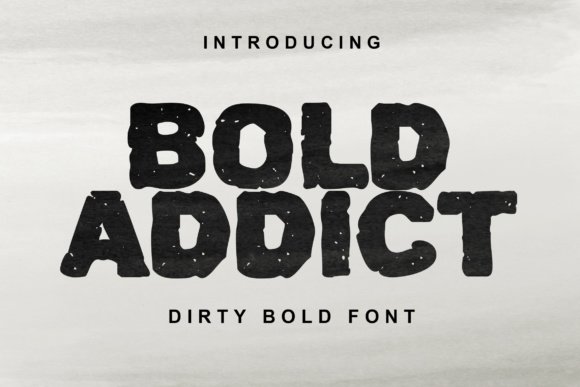
The Perfect Typography Fix for Your Next Design Project
Remember that moment when you’re working on a design project and you just can’t seem to find the right font to convey the message you want to get across? The words are flowing, the colors are popping, but that one missing piece is holding everything back. That’s where the Bold Addict Font comes in – a strong, solid handmade typeface designed to add some much-needed punch to your designs.
Whether you’re a seasoned designer or just starting out, the Bold Addict Font is a valuable addition to your toolkit. Its unique, handmade aesthetic lends a touch of sophistication and personality to any project, making it perfect for branding, marketing materials, and more. With its bold, confident lines, the Bold Addict Font is sure to grab attention and leave a lasting impression.
Bold Addict Font Key Features
- Font Family: Bold Addict Font
- Unique Characteristics: Features a bold, modern design with a unique blend of geometric and organic shapes, making it ideal for headlines, titles, and other attention-grabbing text
Bold Addict Font Review
As a designer, I’ve had the chance to work with a variety of fonts, and my experience with Bold Addict has been quite interesting. Let’s break it down.
- Unique and eye-catching: Bold Addict is certainly a statement font, and it can be just what a design needs to grab attention.
- Wide range of uses: From headings to titles, this font can add a bold touch to any project, be it digital or print.
- Highly customizable: With many variations and ligatures available, you can tweak the font to fit your design perfectly.
- Not ideal for body text: The bold and playful nature of Bold Addict can make it difficult to read in large blocks of text.
- Not as versatile as other fonts: While it excels at making bold statements, it may not be the best choice for more subtle or minimalist designs.
- May not be suitable for accessibility: The font’s boldness and playfulness can make it challenging for users with visual impairments or reading difficulties.
Overall, Bold Addict is a great choice for designers who want to make a bold statement or add some personality to their projects. However, it’s essential to use it judiciously and consider the context in which it will be used. With its unique qualities and customizable options, it’s a valuable addition to any designer’s toolkit, but it’s not a one-size-fits-all solution.
The Bold Addict Font is ideal for:
- Creating bold and eye-catching titles.
- Designing posters, flyers, and brochures.
- Enhancing the visual impact of presentations and reports.
- Adding a touch of personality to social media graphics and ads.
Comparison to Bold Addict Font: Great Vibes has a more refined and polished look compared to Bold Addict Font, which has a more rugged and edgy feel. Great Vibes is better suited for formal and high-end designs, while Bold Addict Font is ideal for more casual and avant-garde projects.
Comparison to Bold Addict Font: Carolyna Pro has a more refined and elegant look compared to Bold Addict Font, which has a more playful and edgy feel. Carolyna Pro is better suited for high-end and luxury designs, while Bold Addict Font is ideal for more casual and creative projects.